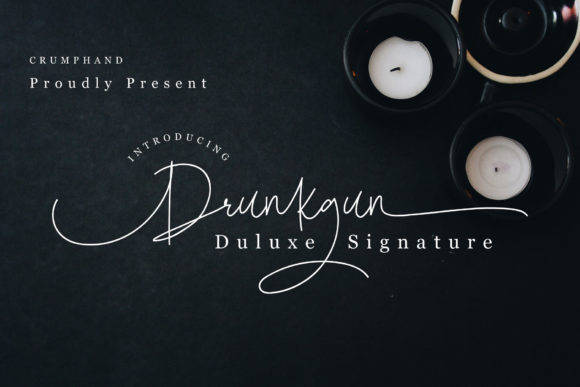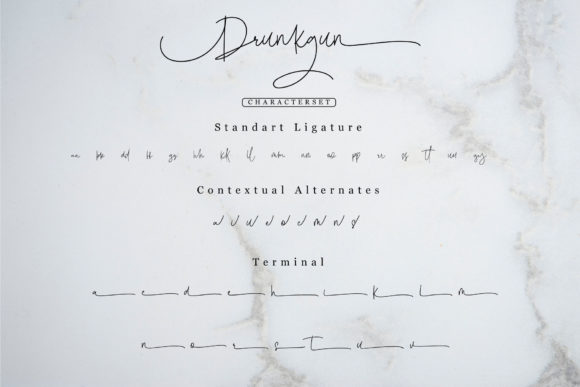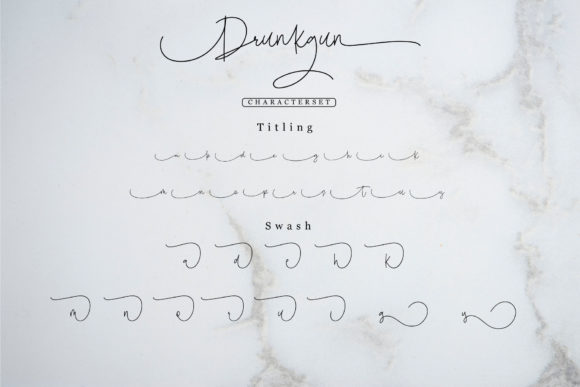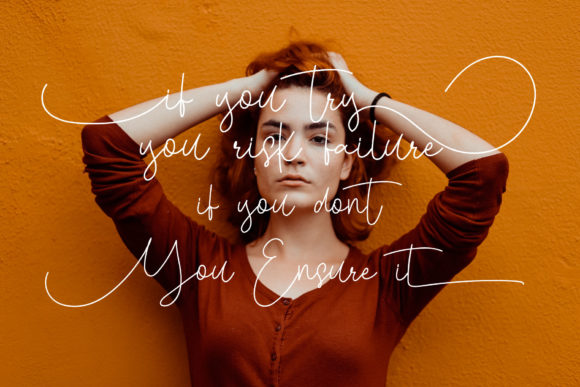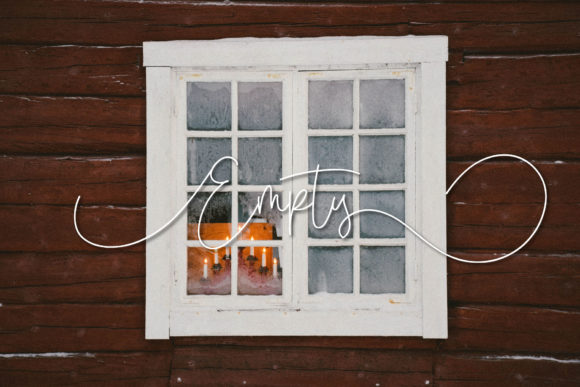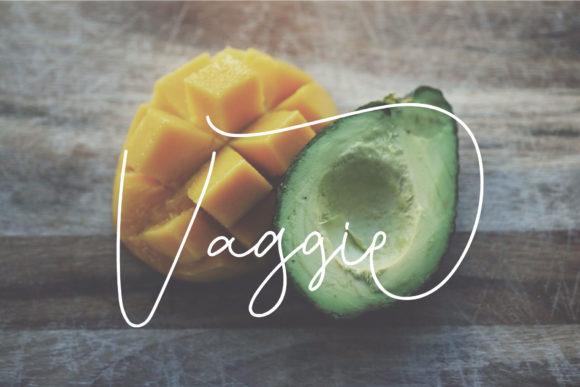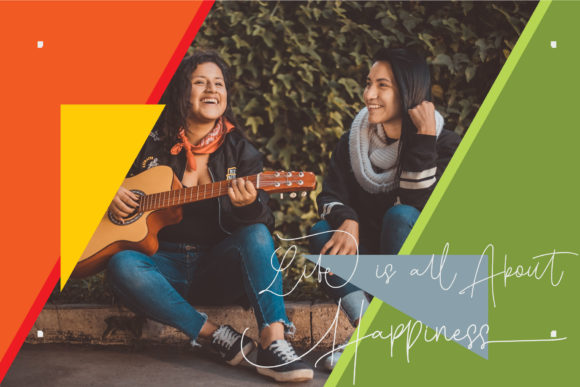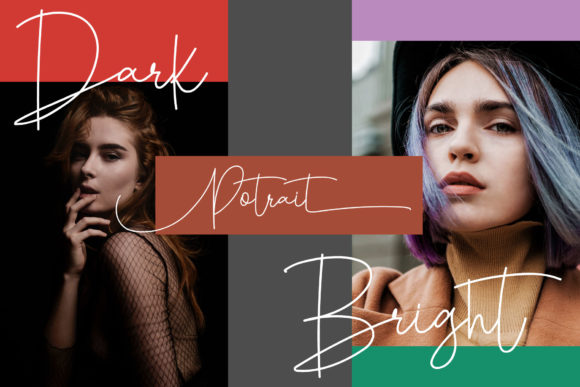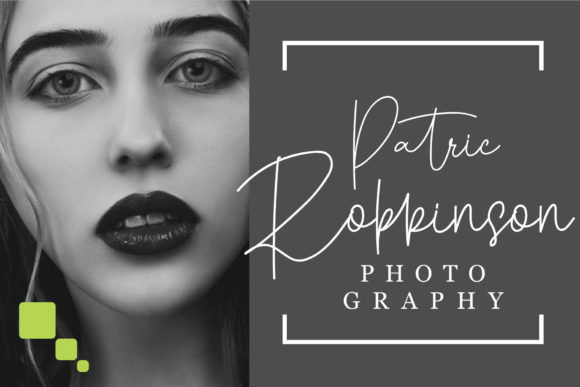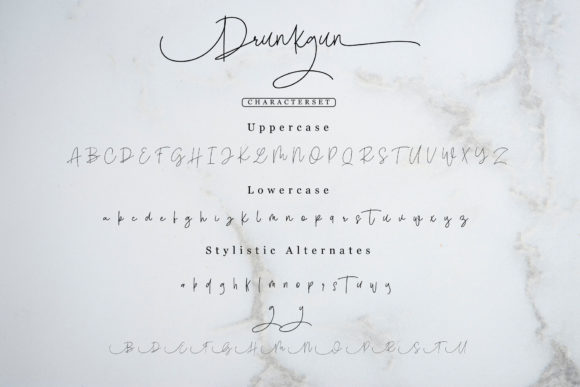
Drunkgun Script Font
About Drunkgun Script Font
The Drunkgun is an elegant signature font. It has a luxurious style which is perfect for adding a upscale and chic look.